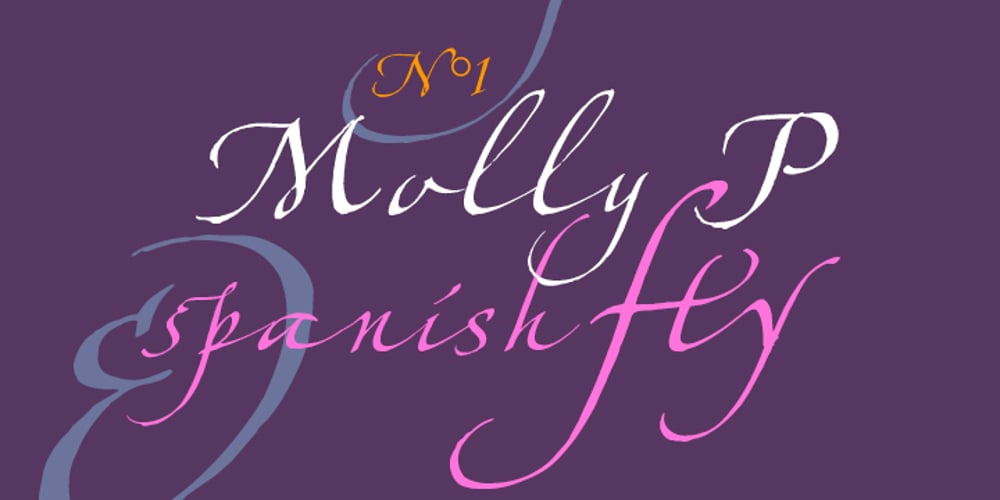
Hamada Font Family was designed by Gaynor Goffe and published by Linotype. Hamada contains 1 styles and family package options. Hamada is a script typeface based on the powerful work of English calligrapher Gaynor Goffe. Hamada captures looseness and charming irregularities of the pen on the page, allowing ink to edge out from the contours and move across curves and letters. Thanks to OpenType, Hamada creates an impression very much like that of real calligraphy. Most of the letters in Hamada have alternate versions; the typeface comes with ligatures, ending swashes, and more.